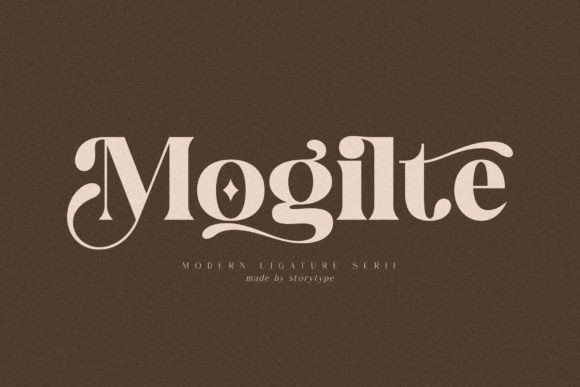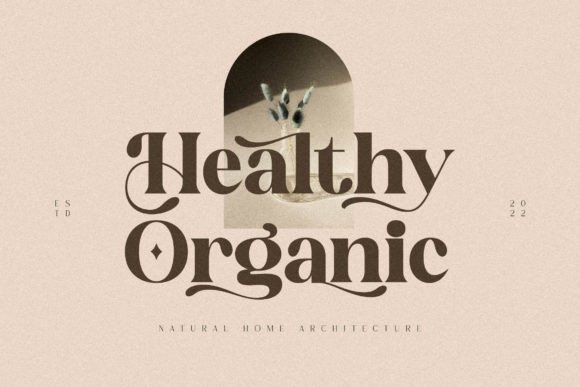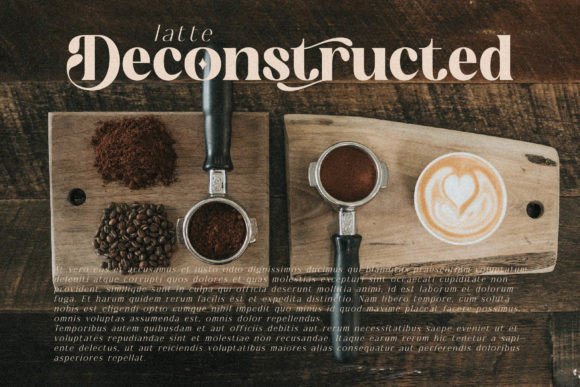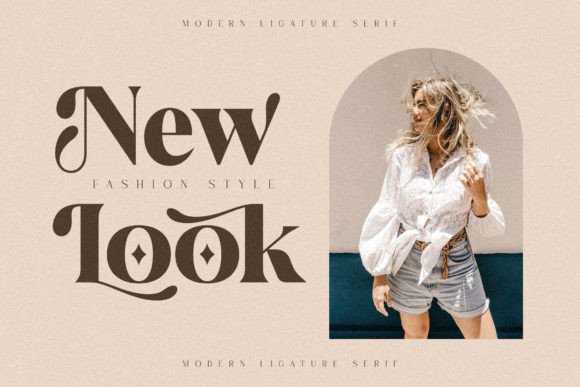
Mogilte Font: Elegant Serif Typography for Modern Logo Design
About the Mogilte Font
The Mogilte Font is here to transform your projects with its distinctive character and style. Mogilte is a modern and classic serif font with a unique style and fancy look.
This typeface is perfect for an elegant & luxury logo, book or movie title design, fashion brand, magazine, clothes, lettering, quotes, and so much more.
Mogilte’s elegant and classic serif design excels in headlines, branding applications (especially logos and packaging for luxury goods), and short-form editorial design such as magazine titles or feature headings. Its refined aesthetic is less suitable for body text or UI elements where high readability over long passages is crucial. The delicate detailing might also be lost at smaller sizes.
The font’s inherent sophistication pairs well with clean sans-serif fonts like Helvetica or Open Sans for a balanced contrast, or with a playful script for a touch of informality in supporting text. Consider pairing it with a geometric sans-serif for a modern, high-end feel, or a neutral serif like Garamond for a more traditional and harmonious look.
Mogilte projects an air of refined luxury and understated boldness. It’s ideal for brands aiming for a sophisticated and timeless image, suggesting quality and exclusivity.
Mogilte Font Example